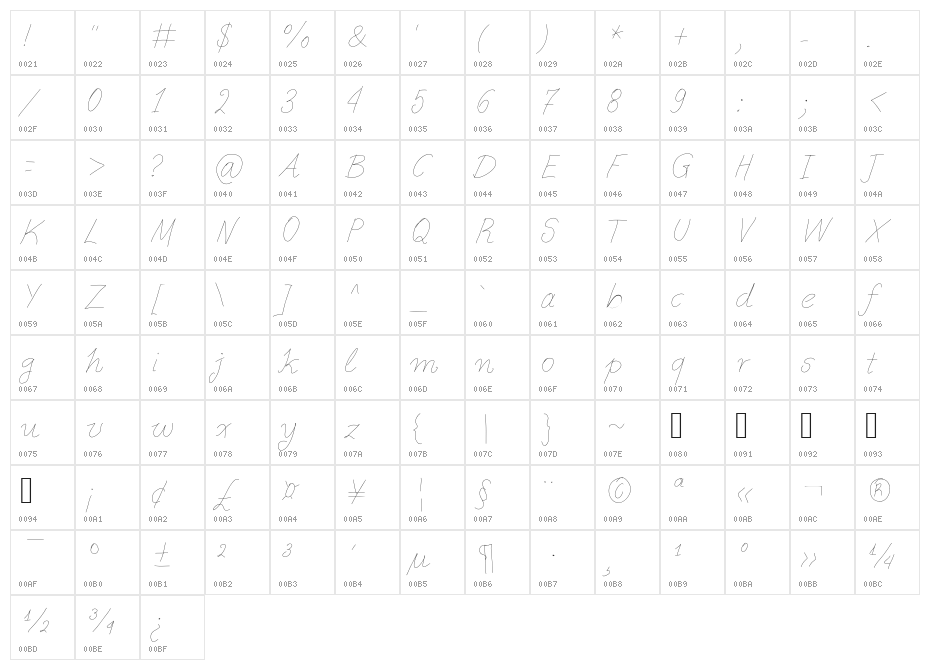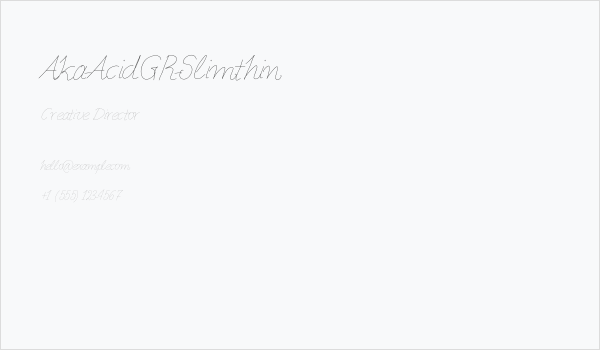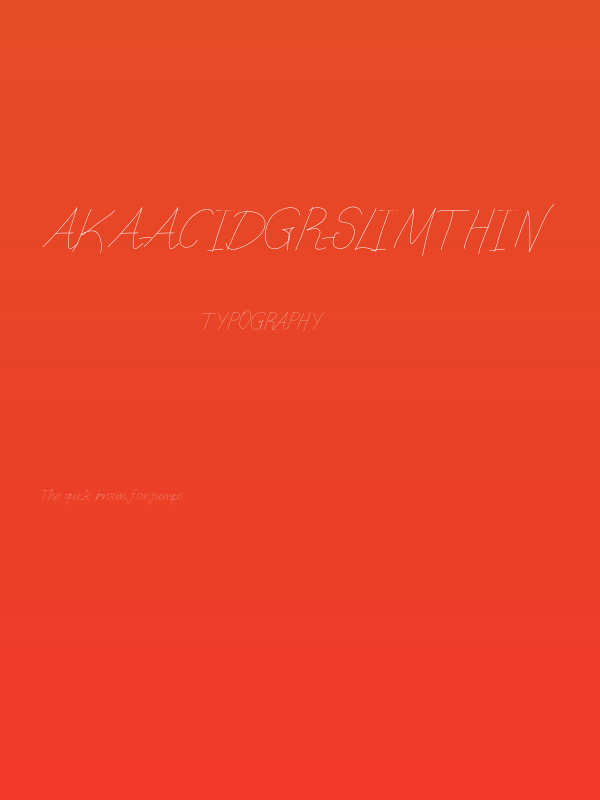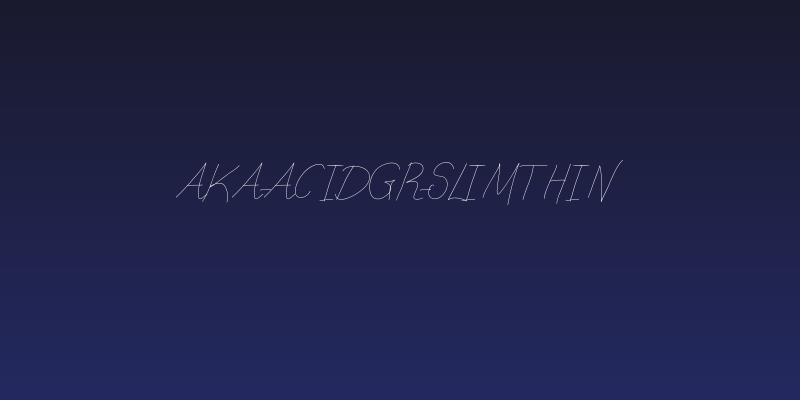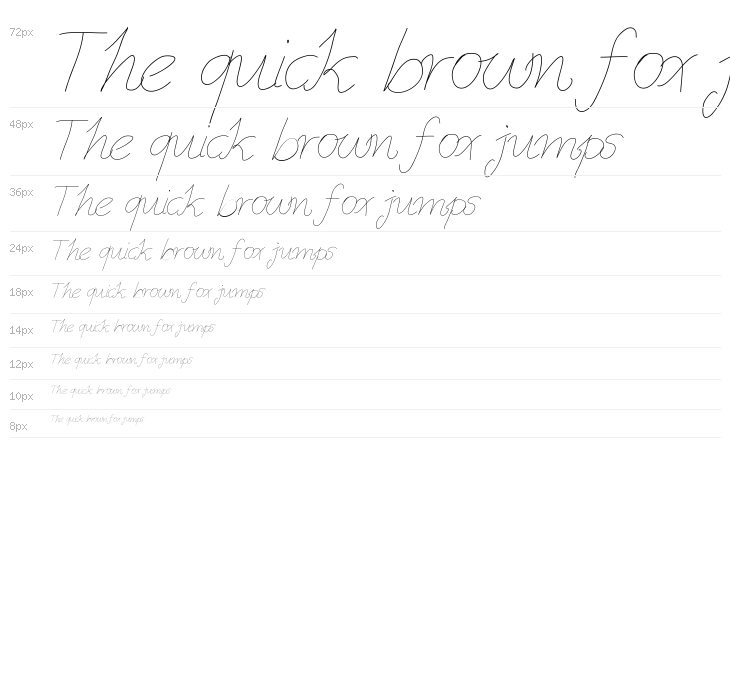
Aka-AcidGR-Slimthin Font
Aka-AcidGR-Slimthin Description
This font features a delicate and elegant script style with thin, flowing lines that give it a graceful appearance. The characters are slightly slanted, adding a sense of movement and fluidity. Uppercase letters are tall and slender, while lowercase letters maintain a consistent height, creating a harmonious balance. The numerals and special characters are designed with the same thin strokes, ensuring uniformity across all elements. This font's airy and light design makes it suitable for projects that require a touch of sophistication and elegance.
| Proposed Projects | Ideal for wedding invitations, elegant branding, personal stationery, and artistic projects. |